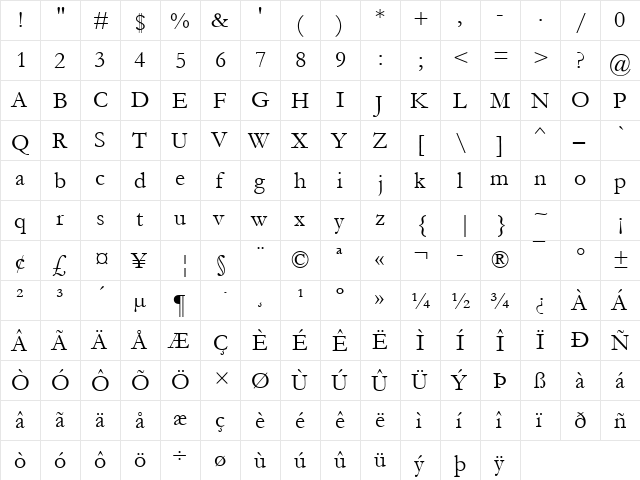
font252 Regular
| Foundry | Monotype Typography, Inc. |
| Designer | Claude Garamond |
Design Context for font252 Typeface
font252 offers clean, dependable letterforms without strong stylistic allegiance, making it a practical choice for designers who need flexibility.